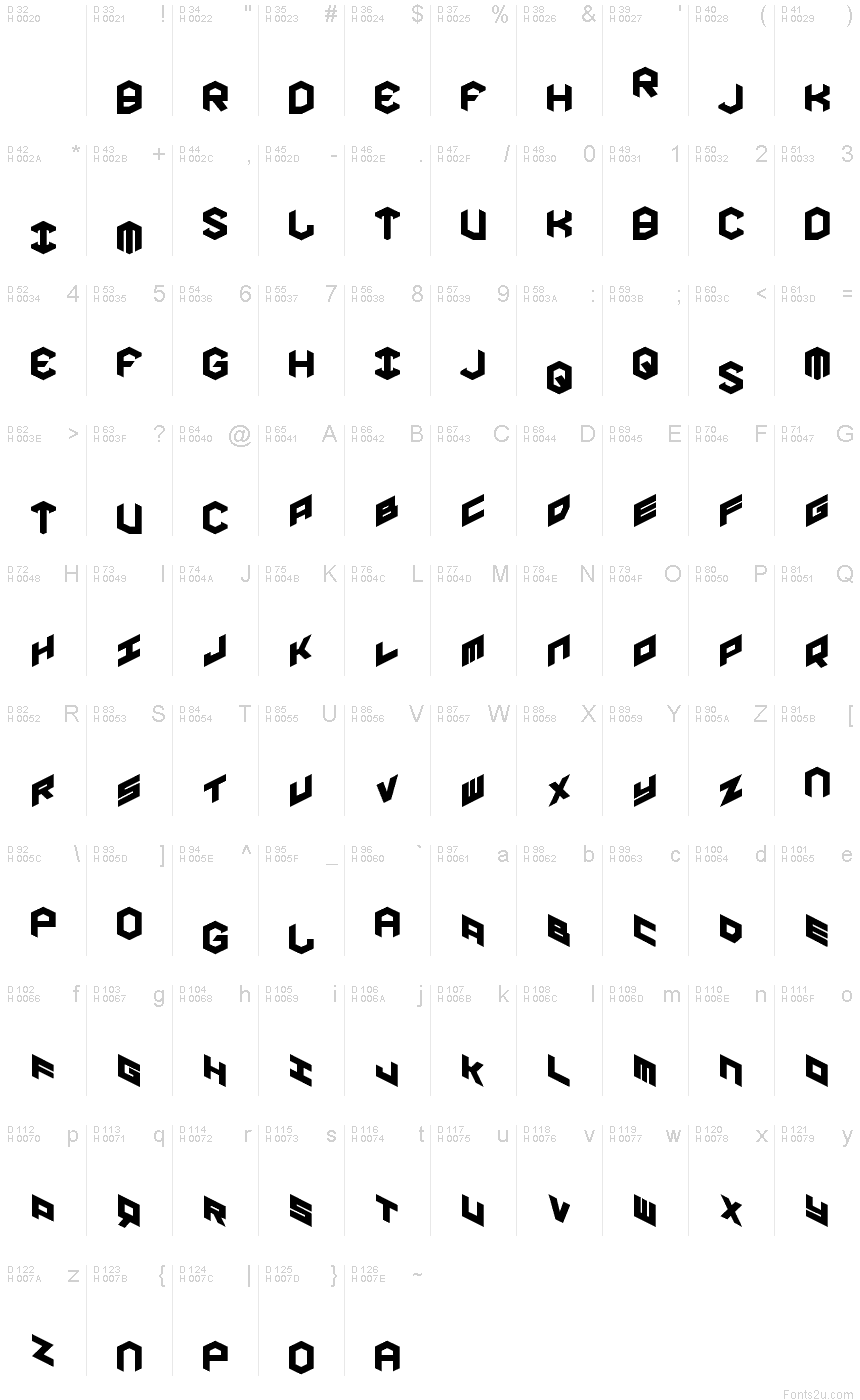
YAY USA, designed in 2013 by Iconian Fonts, is a free techno display font with a hard-edged, futuristic build. Its wide caps use sharp diagonals and deep geometric cutouts. Several forms are reduced to striking angular silhouettes.
It can push sports merchandise toward an aggressive team aesthetic or give game title cards a severe sci-fi edge. Music posters gain the same industrial bite. Across these uses, broad shapes and sliced interiors connect speed, machinery, and competition.
YAY USA